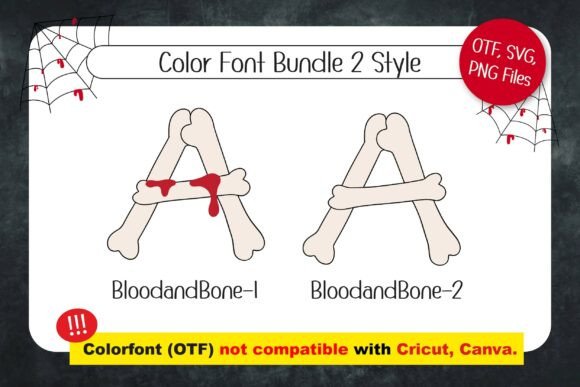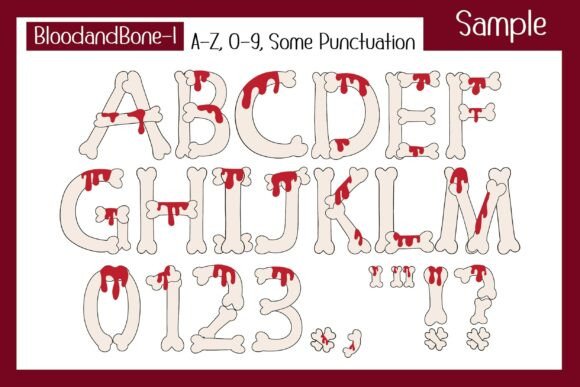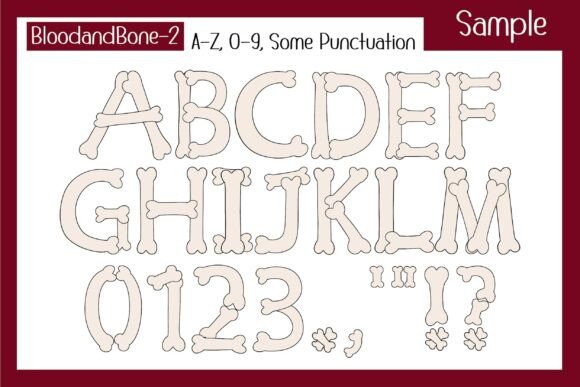
Introduction to Blood & Bone Font
Introducing β€œBlood & Bone” is a playful Halloween-themed color font that brings a fun twist to classic spooky elements.
Inspired by iconic Halloween visuals, this font creatively blends bones and blood into a design that’s more whimsical than frightening With 2 color font styles and 11 matching doodle cliparts, Blood & Bone adds a lively and imaginative touch to your Halloween creations.